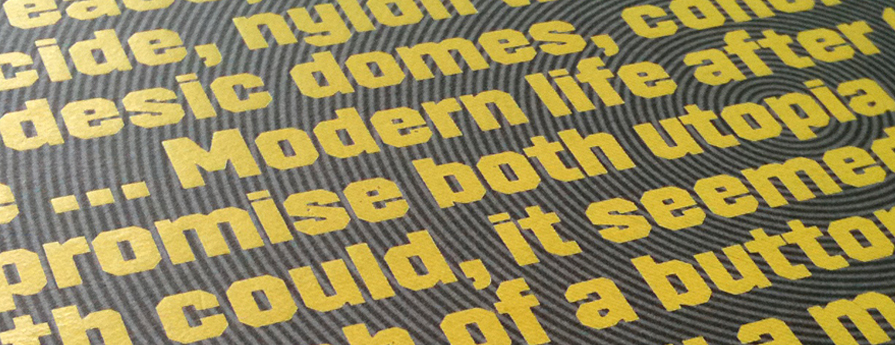
CWM
Inspiration for CWM came from typography, poster design and printed ephemera from the Cold War era. Designed in 2008 as the principal typeface for ‘Cold War Modern: Design 1945–1970’ catalogue published by the V&A Museum in London. The font has since been updated with the addition of two contrasting weights.